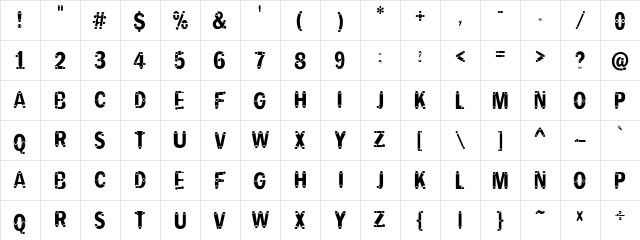
PIPEFONT Regular Font Preview
PIPEFONT Regular
PIPEFONT Regular Font Details
Design Context for PIPEFONT Typeface
PIPEFONT is a composed and adaptable typeface that performs quietly and consistently across a wide range of design contexts.